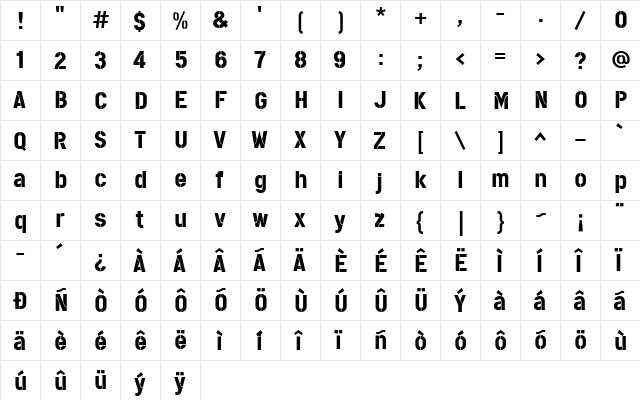
CargoPuma Regular
Design Context for CargoPuma Typeface
CargoPuma is a composed and adaptable typeface that performs quietly and consistently across a wide range of design contexts.
Pro Tip: Pair CargoPuma with a font of contrasting weight or personality to build a more expressive typographic hierarchy.